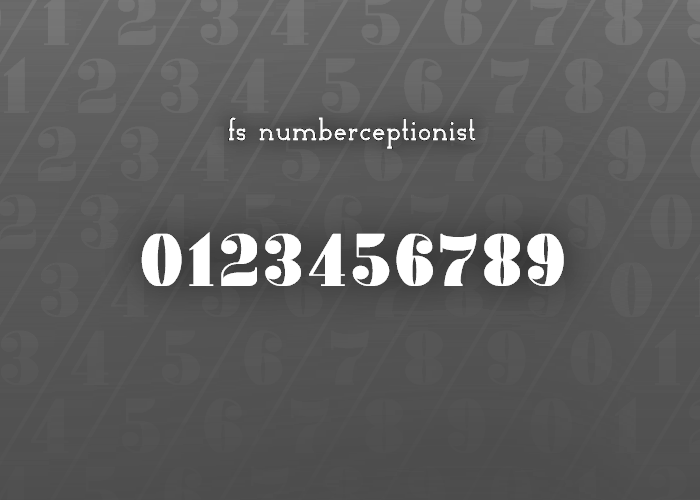
• My first submission for the Numbers competition.
This font (especially 6 and 9) will probably be edited in the future.
This potentially is a winner if you ask me.. For this specific style there isn't a lot "Fontstruct" wise that could top this, period!!
Very nice pal...
10/10 & Favo... Good luck!
wowwww
Thanks @elmoyenique and @Sed4tives for the positive feedback, even though I don't particularly like how my 2 turned out, because I had some better designs but I couldn't really figure out how to make them in FS. By the way, great 2's you have there.
High contrast, curves, ball terminals; nicely fontstructed!